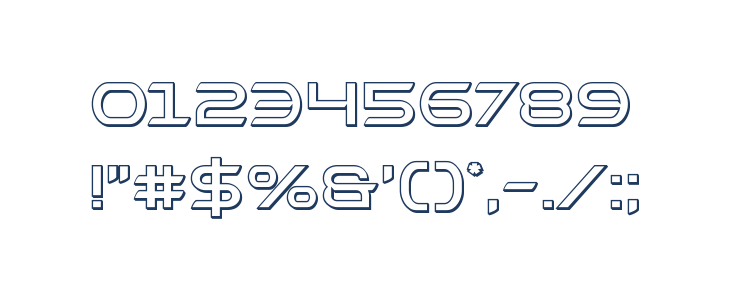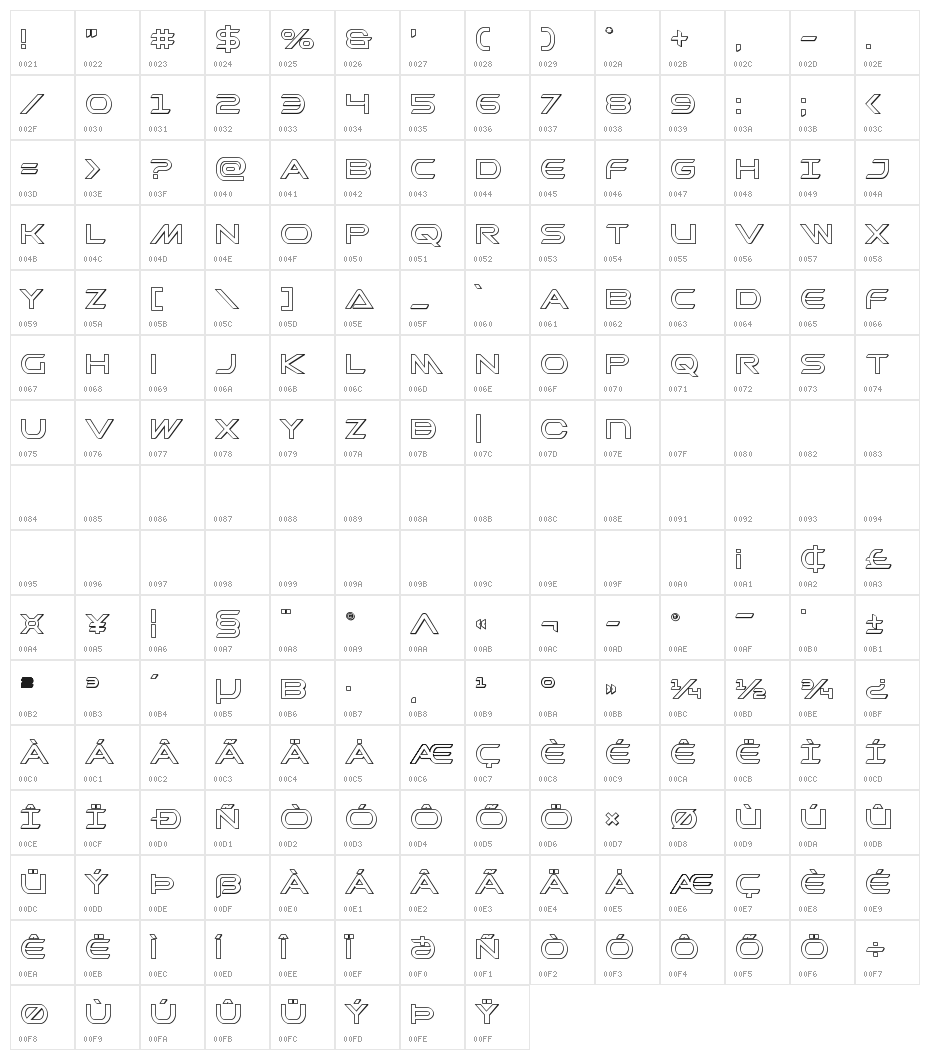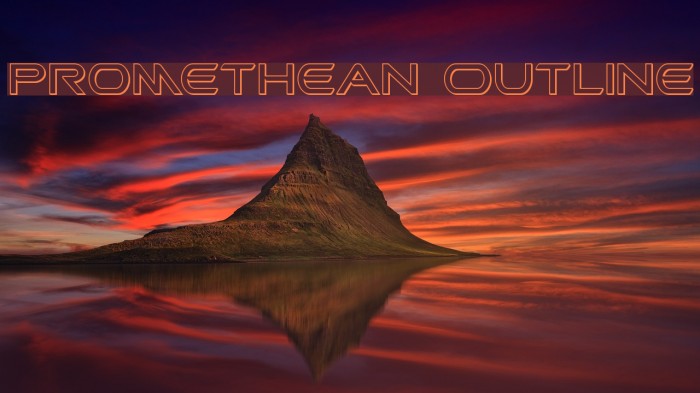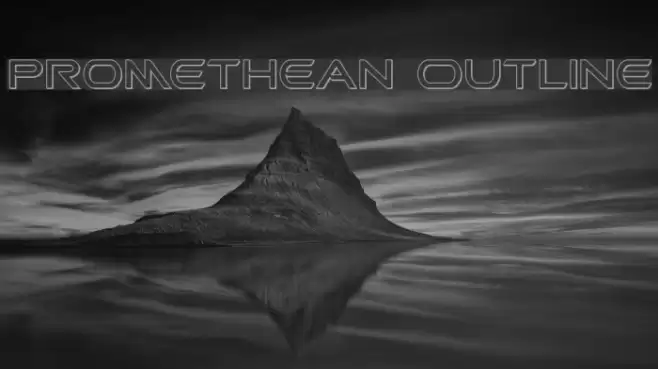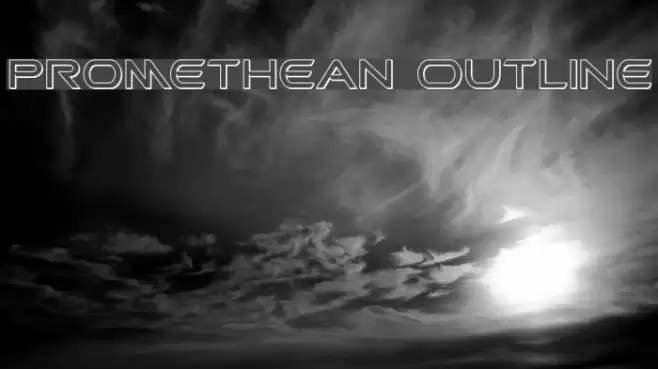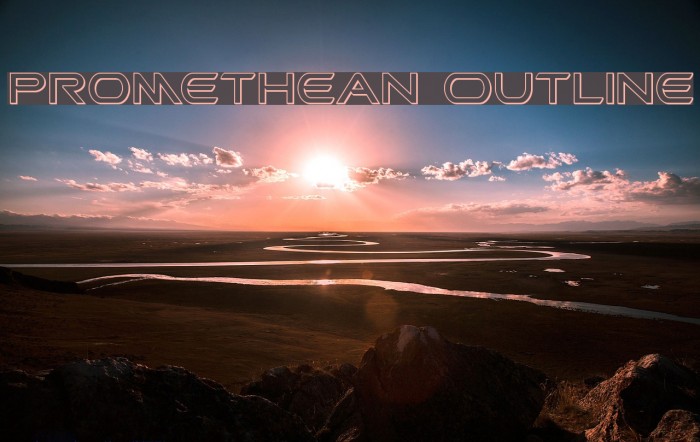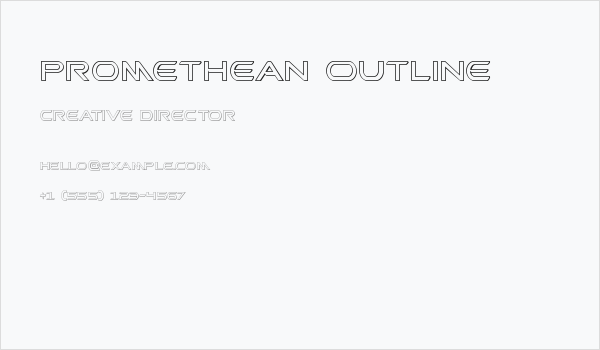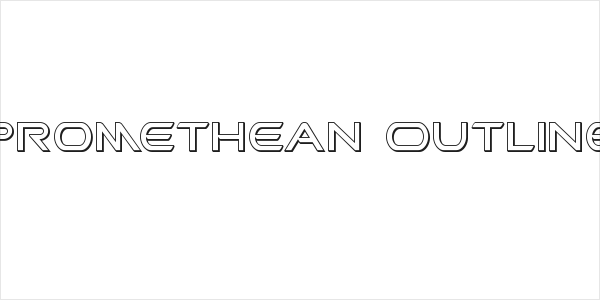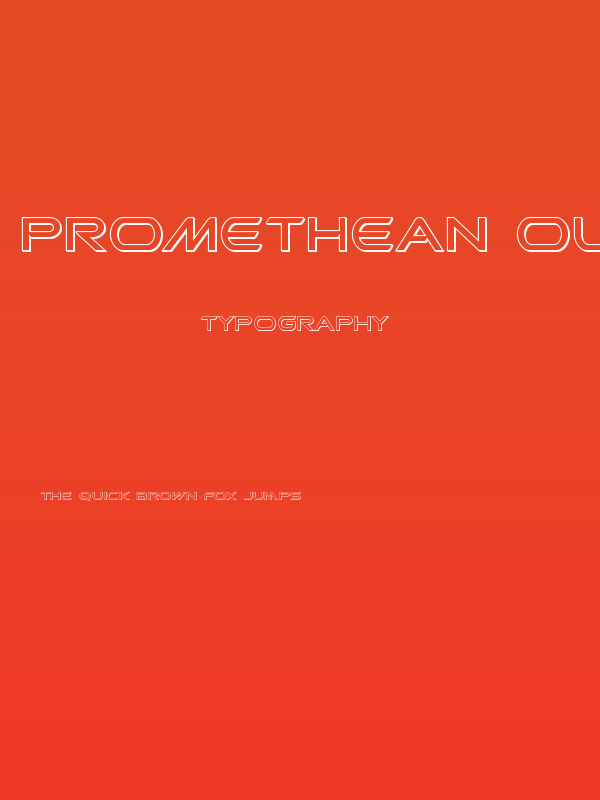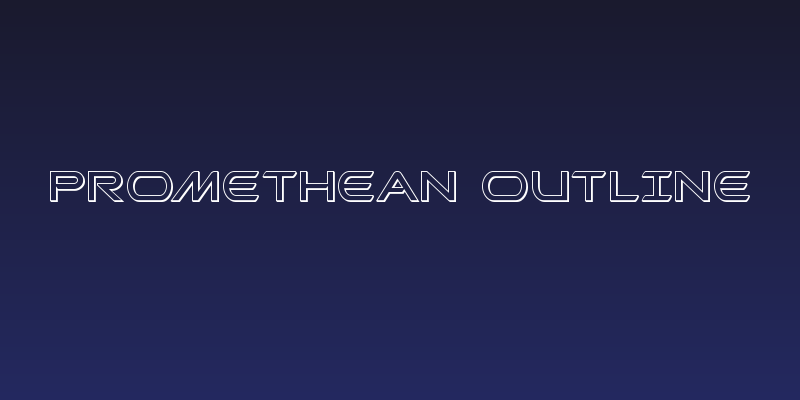
Promethean Outline Font
Promethean Outline Description
This font features a distinct outline style, characterized by its geometric and angular letterforms. The uppercase and lowercase letters maintain a consistent structure, with sharp edges and clean lines that create a futuristic and modern appearance. The numerals and special characters follow the same design principles, ensuring uniformity across all glyphs. The open, airy design of the font makes it ideal for creating a striking visual impact, while the consistent stroke width adds to its bold and confident look.